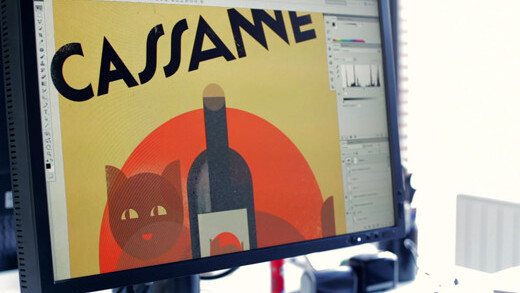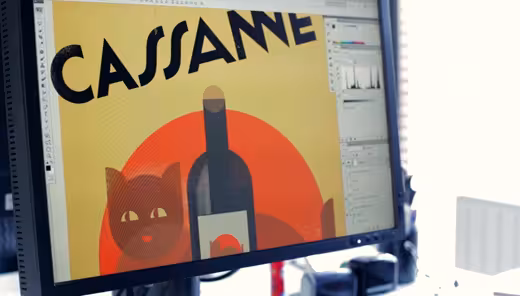
Atipo, a multi-disciplinary studio from Spain, has just recently released an entire typeface dedicated to the charming work of A.M. Cassandre, a French poster artist and typographer. The font is completely free, and only requires a tweet to download, though you also have the option to contribute a donation in support of the creators.
If you haven’t heard of him yet, you have to know that Cassandre’s work is absolutely, unquestionably beautiful. It’s precise, fluid, heavily geometric, and certainly deserves attention. Of course, this is all my personal opinion, but I challenge our readers to rationalize how his work is anything but great design.
Aptly named “Cassannet,” the font follows Cassandre’s almost quirky style in full Art Deco glory. Here’s the promotional posters created by Atipo, in the same spirit as the French poster designer’s original work:
Atipo has now released a new, expanded and refined version of this typeface under the name Cassannet. The name is a contraction of Cassandre’s name and the wine brand for which he designed iconic advertising posters – Dubonnet. To promote its introduction, and as a tribute to Cassandre, Atipo have recreated his famous 1932 triptych “Dubo, Dubon, Dubonnet” in real life.